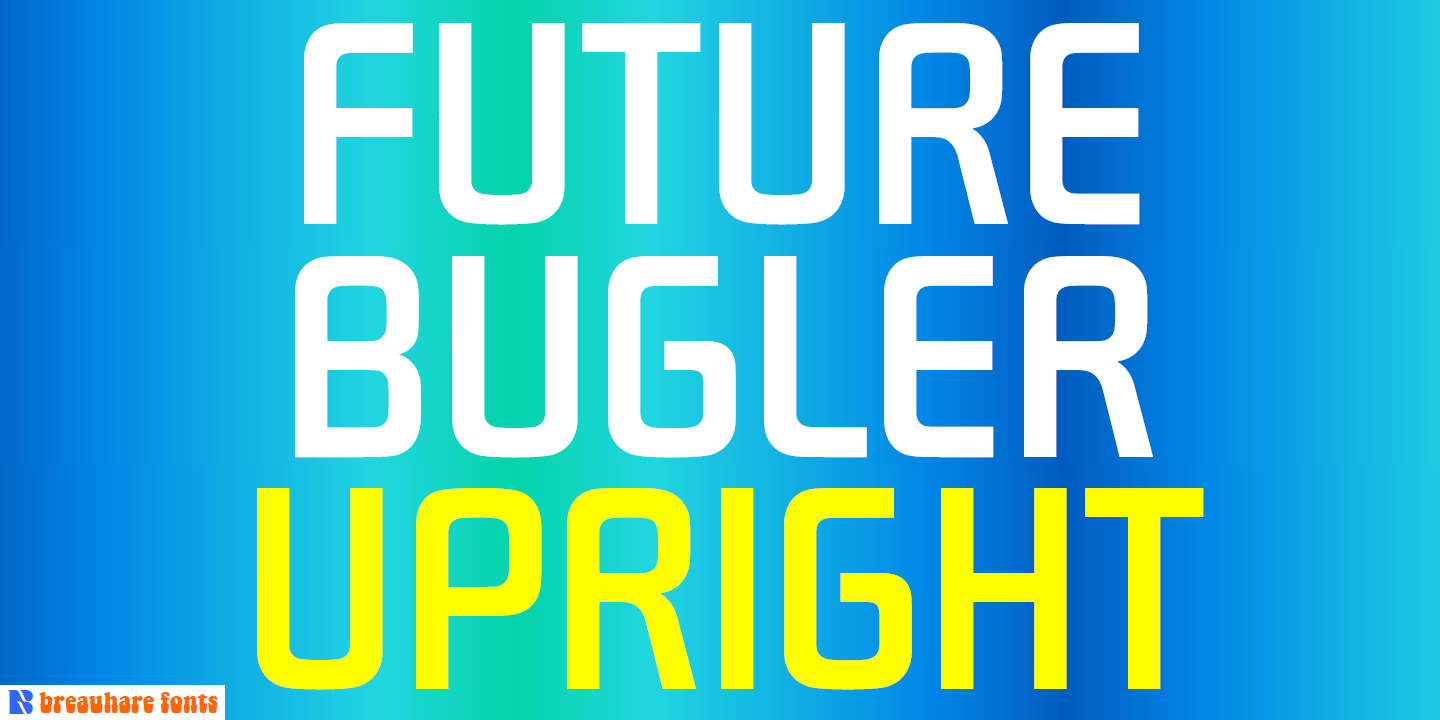
Future Bugler Upright Font Free Download is a sleek, upright sans-serif typeface designed for forward-thinking projects. Its clean lines and strong posture make it perfect for technology branding, futuristic designs, editorial layouts, and digital interfaces.
Whether you're creating bold headlines, modern logos, or innovative product packaging, Future Bugler Upright Font Free Download adds clarity and a confident voice to your typography. It’s ideal for both print and digital media, ensuring your message stands tall and clear.